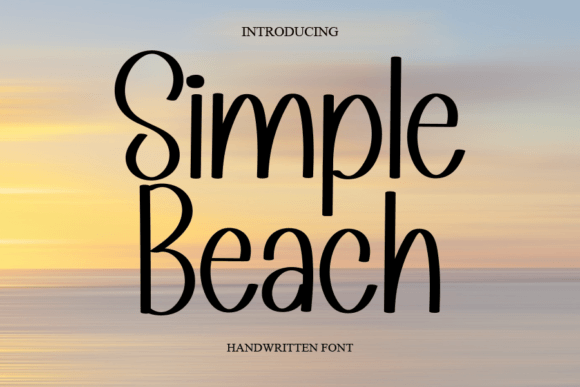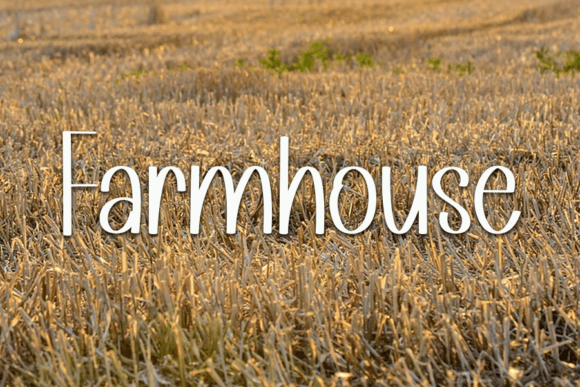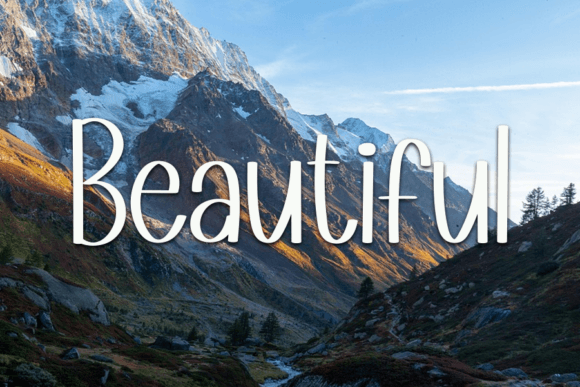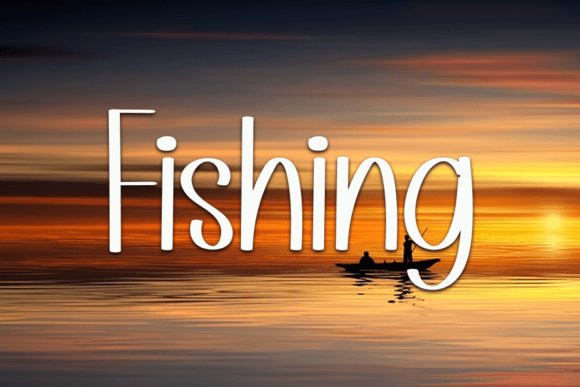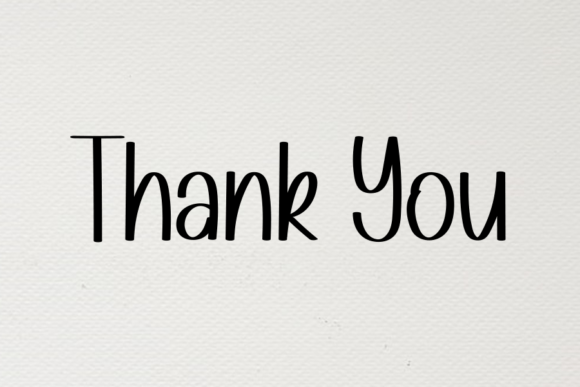
Simple Beach Font
The Simple Beach Font Download is a sweet and beautiful handwritten script designed to add warmth, creativity, and elegance to your work. With dancing baseline characters and carefully crafted curves, this font adapts perfectly to both personal and professional projects. Whether you’re designing invitations, posters, or social media graphics, Simple Beach brings a cozy and stylish handwritten touch.
A Sweet Script with Natural Flow
The Simple Beach script font blends playful handwritten strokes with modern balance. As a result, it feels fresh, approachable, and versatile. Furthermore, it transitions smoothly between stationery and large-scale creative projects, making it a valuable tool for hobbyists and professional designers alike.
Handwritten fonts always add charm and personal meaning. The Simple Beach Font is perfect for wedding invitations, thank you cards, birthday notes, and festive greetings. Because of its elegant handwritten design, every card looks polished and heartfelt. In addition, it ensures that your stationery leaves a lasting impression.
Branding and Logo Design with Simple Beach Font
Typography is key in defining brand voice. The Simple Beach handwritten font is excellent for boutique logos, product packaging, and promotional designs. Its friendly yet professional handwritten flow gives businesses a creative and approachable image. Therefore, it works especially well for lifestyle, fashion, and creative industries.
Posters, Titles, and Editorial Designs
The Simple Beach Font Download also shines in posters, magazines, banners, and book covers. It remains clear at any scale while adding handwritten personality. Consequently, it is a reliable option for designers who want creativity and readability combined.
In today’s digital world, fonts must look engaging across platforms. The Simple Beach typeface integrates seamlessly into Instagram posts, Pinterest graphics, YouTube thumbnails, and blogs. Because of its handwritten charm, it ensures digital projects look stylish and fun.
Why Designers Choose Simple Beach Typeface
Designers appreciate fonts that balance usability with artistry. The Simple Beach handwritten script maintains its cozy handwritten energy while staying easy to read. This makes it perfect for professionals as well as hobbyists. Moreover, its timeless style ensures it remains a popular choice for future projects.